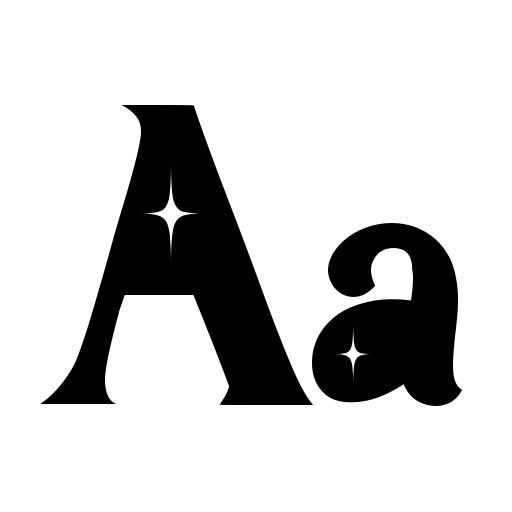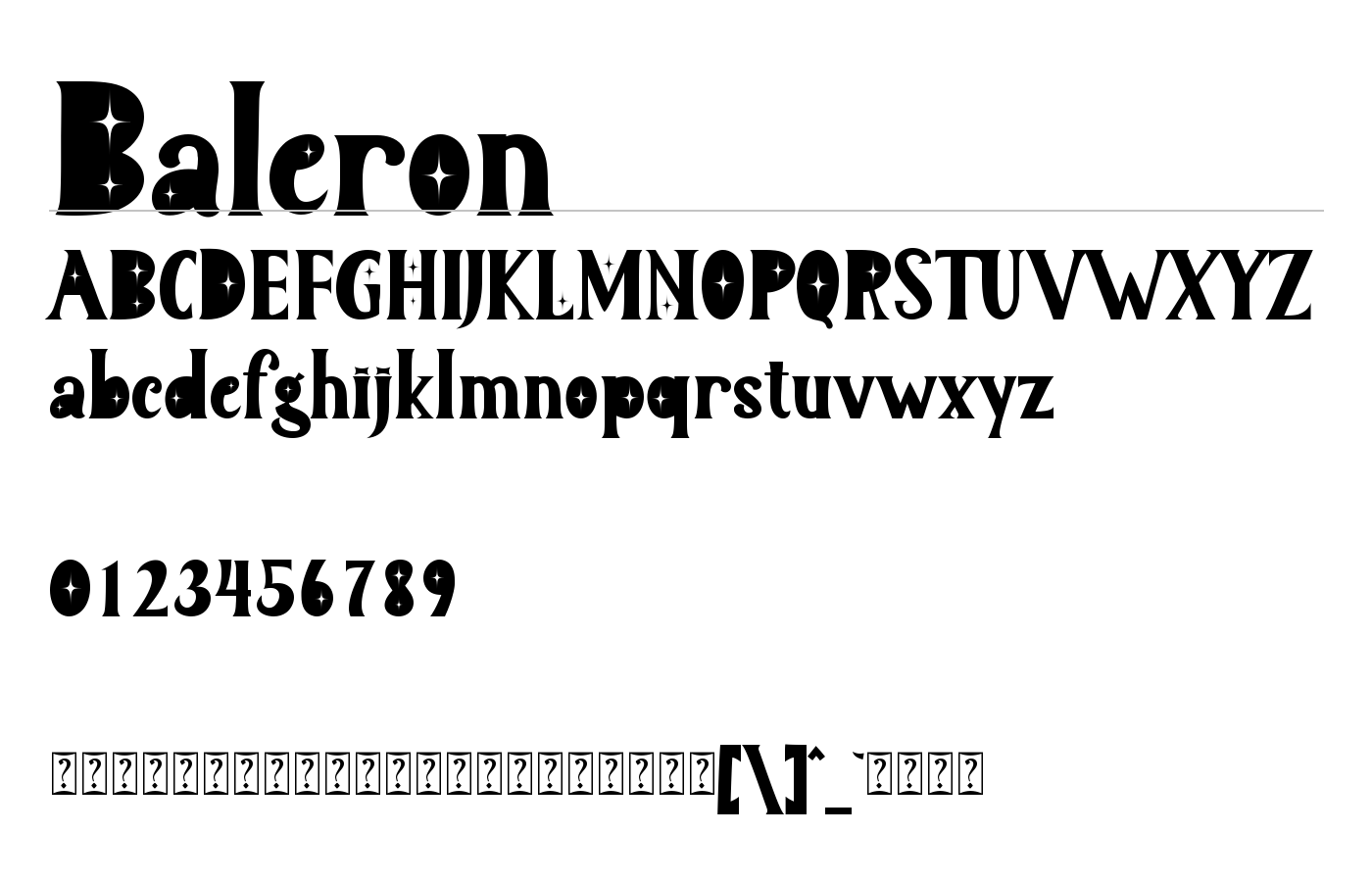
Baleron is a bold, serif display font with a striking vintage flair characterized by its strong stroke contrast and tall, narrow letterforms. Its playful yet elegant style, highlighted by unique star-shaped cutouts within the letters, makes it ideal for eye-catching headlines, logos, and creative branding that seeks a retro yet sophisticated look. This font works wonderfully in designs that want to combine classic charm with a distinctive, memorable presence.
Baleron Font
About Baleron Font
| Font family | Baleron Font |
| Designer | Yoga Letter 2024 (Isroni Yoga Prasetya) |